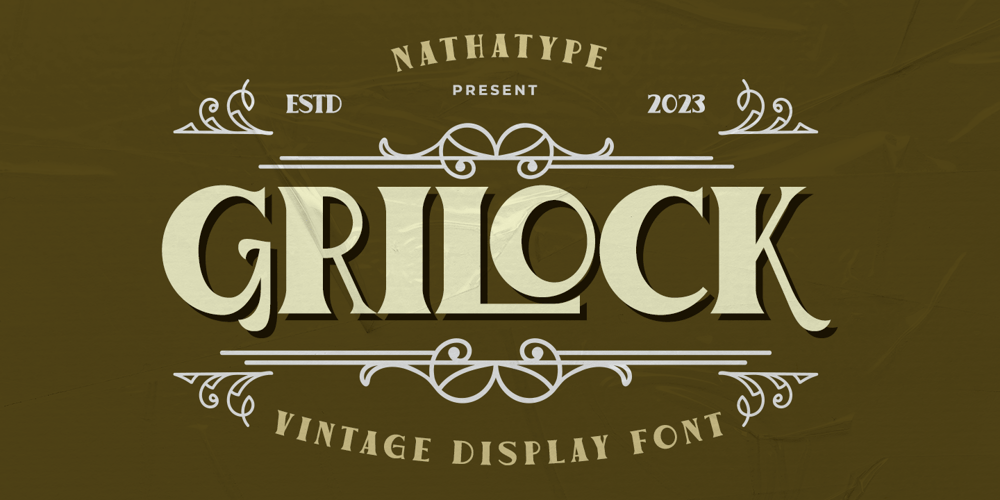
Grilock
Grilock font
Grilock Font Family was designed by Donis Miftahudin and published by Nathatype. Grilock contains 1 styles and family package options. Prepare to embark on a typographic journey through the past with Grilock, an uppercase display font that merges vintage looks. The thickness of each letter is uneven, giving them a reminiscent of vintage handcrafted signage. The relatively sharp corners of Grilock provide visual contrast against the uneven thickness, resulting in a font that is both striking and memorable. In addition, Grilock gives ornaments as a special bonus. Grilock fits in posters, logos, branding materials, and many more.